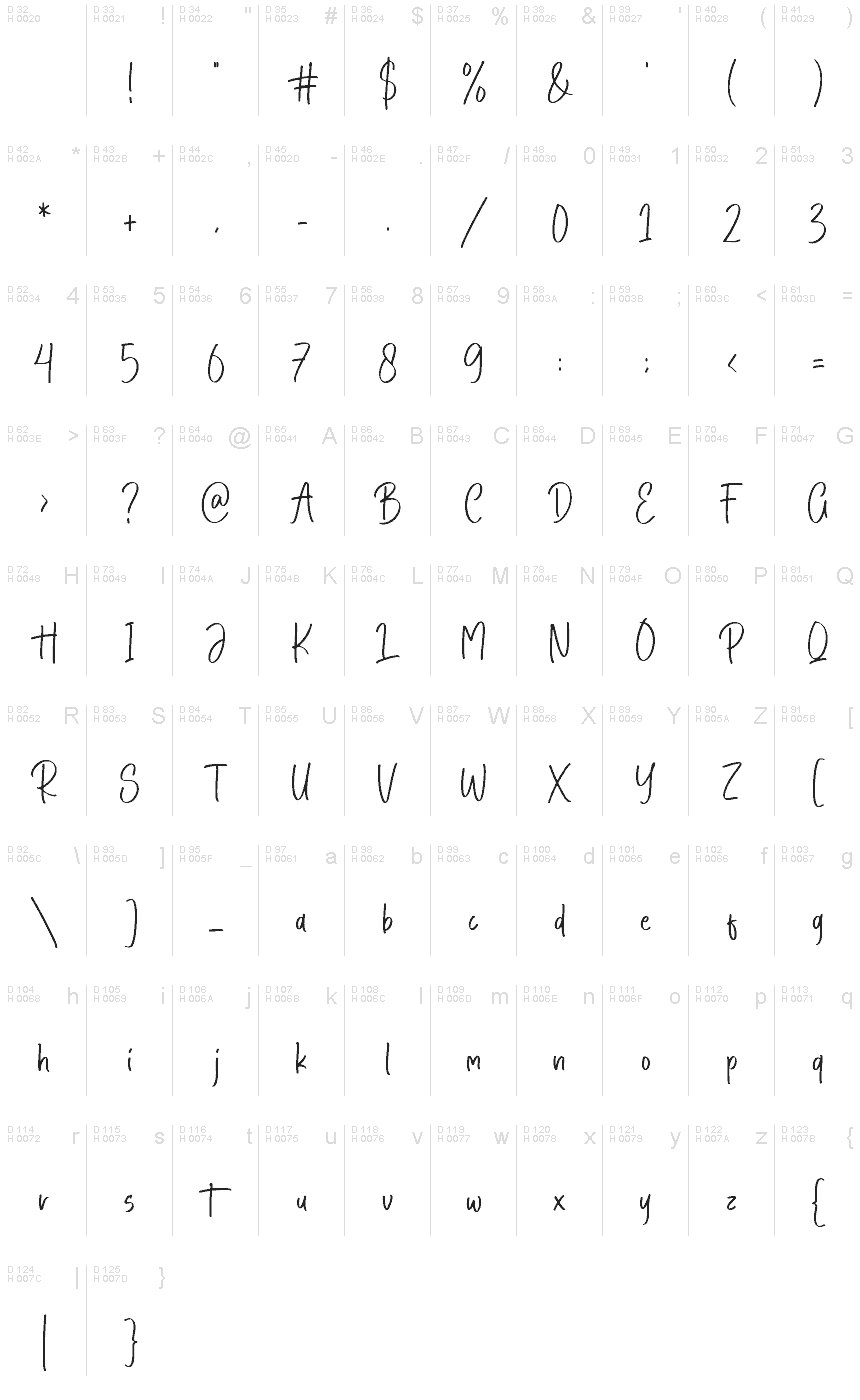
Peach Cakes
Peach Cakes font by Aestherica Studio is a free handwritten font characterized by its light weight, elegance, and overall flowing friendly appearance. Its contemporary style makes it great for multiple projects in which it will appear casual yet inviting to the viewers.
Use Peach Cakes in branding design, logo creation, packaging design, invitations of all types including wedding invitations. Use it also for greeting cards, book covers and mug designs as well as other fun typography projects.